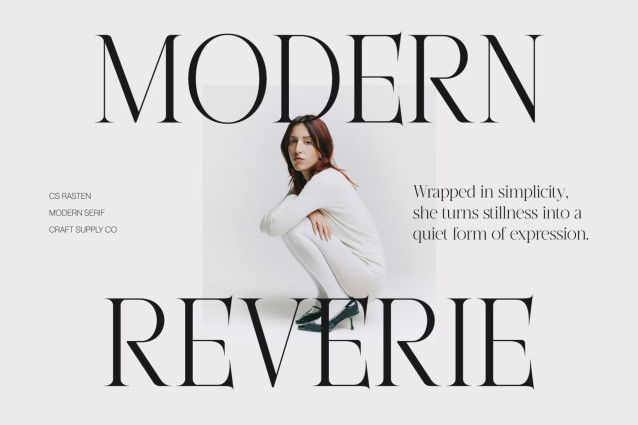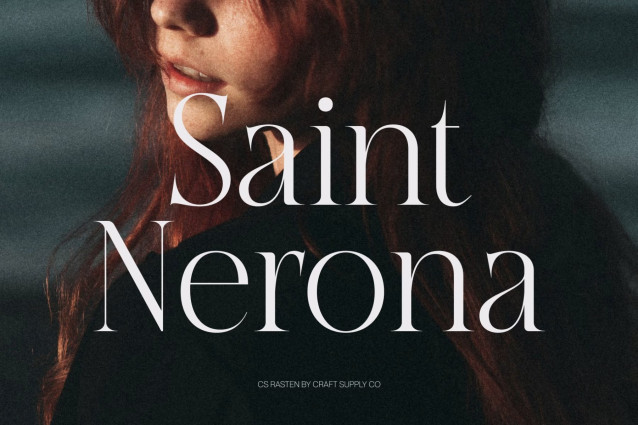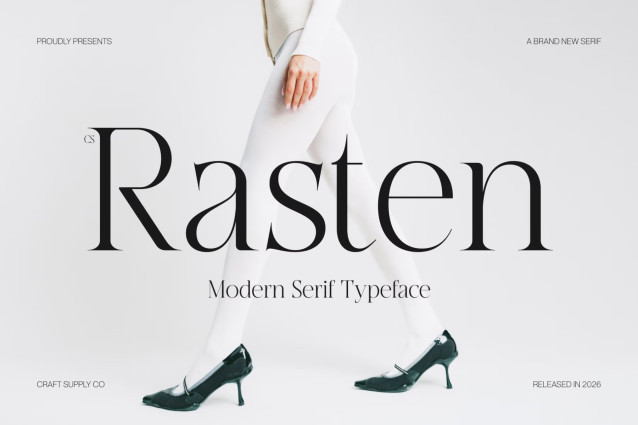
CS Rasten– Modern Serif Font
CS Rasten – Modern Serif Font: Where Elegant Proportions Meet Professional Sophistication
Slim Proportions and Elongated Serifs
This is a modern serif font designed with slim proportions and graceful elongated serifs that create a sophisticated and polished visual presence. Its refined structure conveys elegance, professionalism, and contemporary luxury, making every word appear poised and distinguished. The carefully crafted letterforms strike a perfect balance between delicacy and authority, resulting in a timeless and versatile typographic style.
Contemporary Elegance with Premium Character
This font delivers a typographic identity that feels luxurious, confident, and highly refined. Its slender forms and elegant rhythm create a sense of exclusivity and prestige, making it ideal for projects that require a high-end aesthetic without sacrificing readability.
Graceful Typography for Sophisticated Design
This font offers exceptional versatility across editorial, branding, and fashion-focused applications. Its elongated details add visual refinement while maintaining a clean and contemporary appearance, allowing it to stand out beautifully in both headlines and sophisticated layouts.